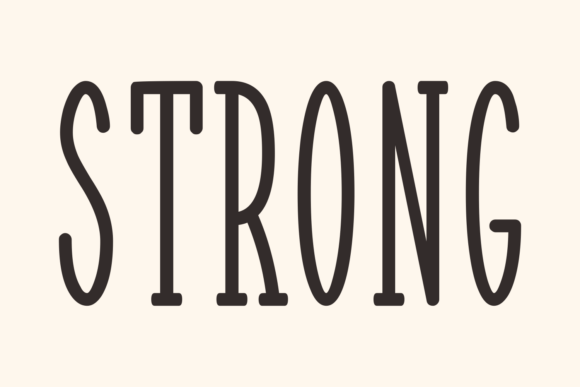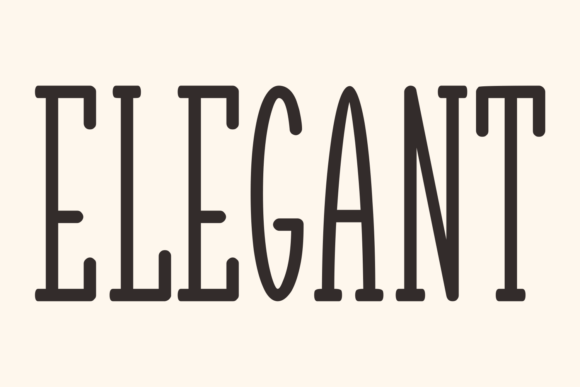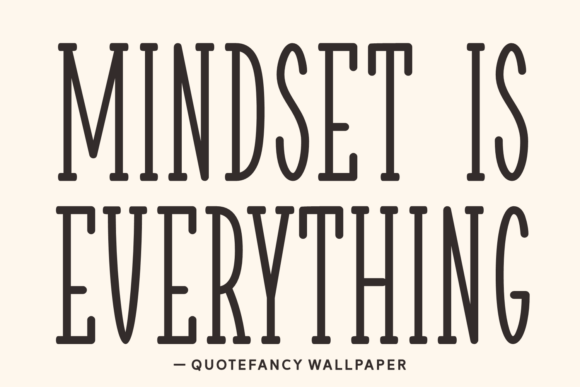
Introducing Finer Fonts – Where Typography Comes to Life
In the world of design, typography plays a crucial role in conveying messages, evoking emotions, and creating lasting impressions. For designers and crafters, finding the perfect font can be a daunting task. However, with Finer Fonts, the search is over. This slab-serif font is not just a typography style, but an alternative approach to font design that makes every word you write stand out.
The Perfect Accent for Your Design
Finer Fonts is perfect for accentuating your design, be it an apparel design, book cover, or any other project that requires a unique touch. The font’s clean and crisp lines make it an authentic addition to any design, breathing a freshness that is hard to ignore. Whether you’re designing a magazine cover, product packaging, or a simple quote, Finer Fonts brings versatility to your projects like no other.
Calming and Whimsical
One of the distinctive features of Finer Fonts is its round and smooth texture, which calms the eyes and invites the reader to engage with the content. The swashing details add a fairy-tale touch to the font, making it perfect for designs that require a touch of elegance and sophistication. The font’s unique blend of modernity and classic charm makes it an excellent choice for designers looking to create something truly unique.
Tailored for T-Shirts and More
Finer Fonts is specifically tailored for t-shirts, making it an excellent choice for designers who want to create stunning apparel designs. However, the font family also comes with regular fonts that suit every need of designers, from brochures to business cards. The font’s versatility knows no bounds, making it an excellent addition to any design project.
Breaking Language Barriers
In a world where design knows no borders, Finer Fonts breaks the barriers of language, making it a universal choice for designers all around the world. With multilingual support, designers can create stunning designs that cater to diverse audiences, without worrying about the font’s compatibility.
Every Alphabet Tells a Story
With Finer Fonts, every alphabet tells a story. The font’s unique design makes every word, sentence, and paragraph a masterpiece of its own. Whether you’re designing a book cover, magazine, or a simple quote, Finer Fonts brings the story to life, engaging the reader and leaving a lasting impression.
Why Choose Finer Fonts?
- Unique Typography: Finer Fonts offers a unique approach to typography, making every word you write stand out.
- Versatility: The font is perfect for various design projects, from apparel designs to book covers, magazine covers, and more.
- Multilingual Support: Finer Fonts breaks language barriers, making it a universal choice for designers worldwide.
- Clean and Crisp Lines: The font’s clean and crisp lines make it an authentic addition to any design.
- Swashing Details: The swashing details add a fairy-tale touch to the font, making it perfect for designs that require elegance and sophistication.
Get Creative with Finer Fonts